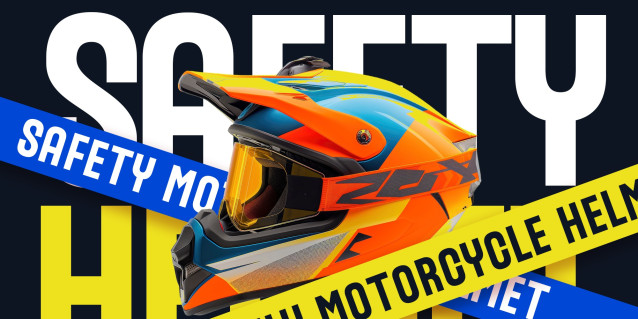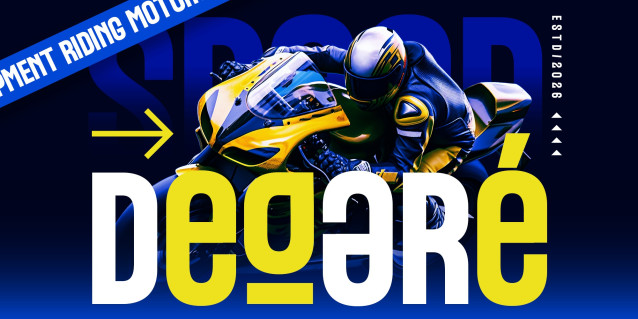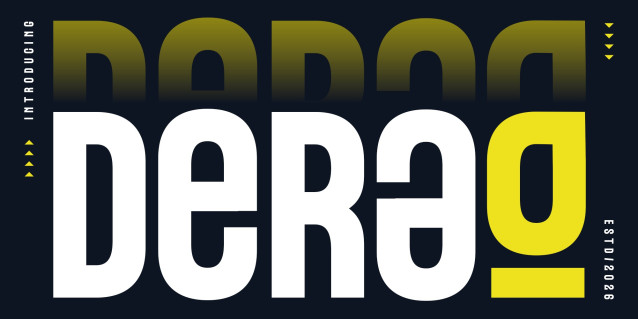
Derag – Font
Derag is a bold modern display typeface that infuses strong character and visual impact into contemporary design projects. Featuring confident letterforms and a balanced structure, Derag offers a clean yet expressive typography style that excels in branding and headline applications.
This typeface is crafted for designers seeking a modern font suitable for logo design, branding identity, posters, advertising, packaging, and social media graphics, providing versatility while retaining a distinctive personality. Its robust shapes and contemporary construction make Derag ideal for crafting powerful visual statements across both digital and print design, ensuring your projects stand out with clarity and style.